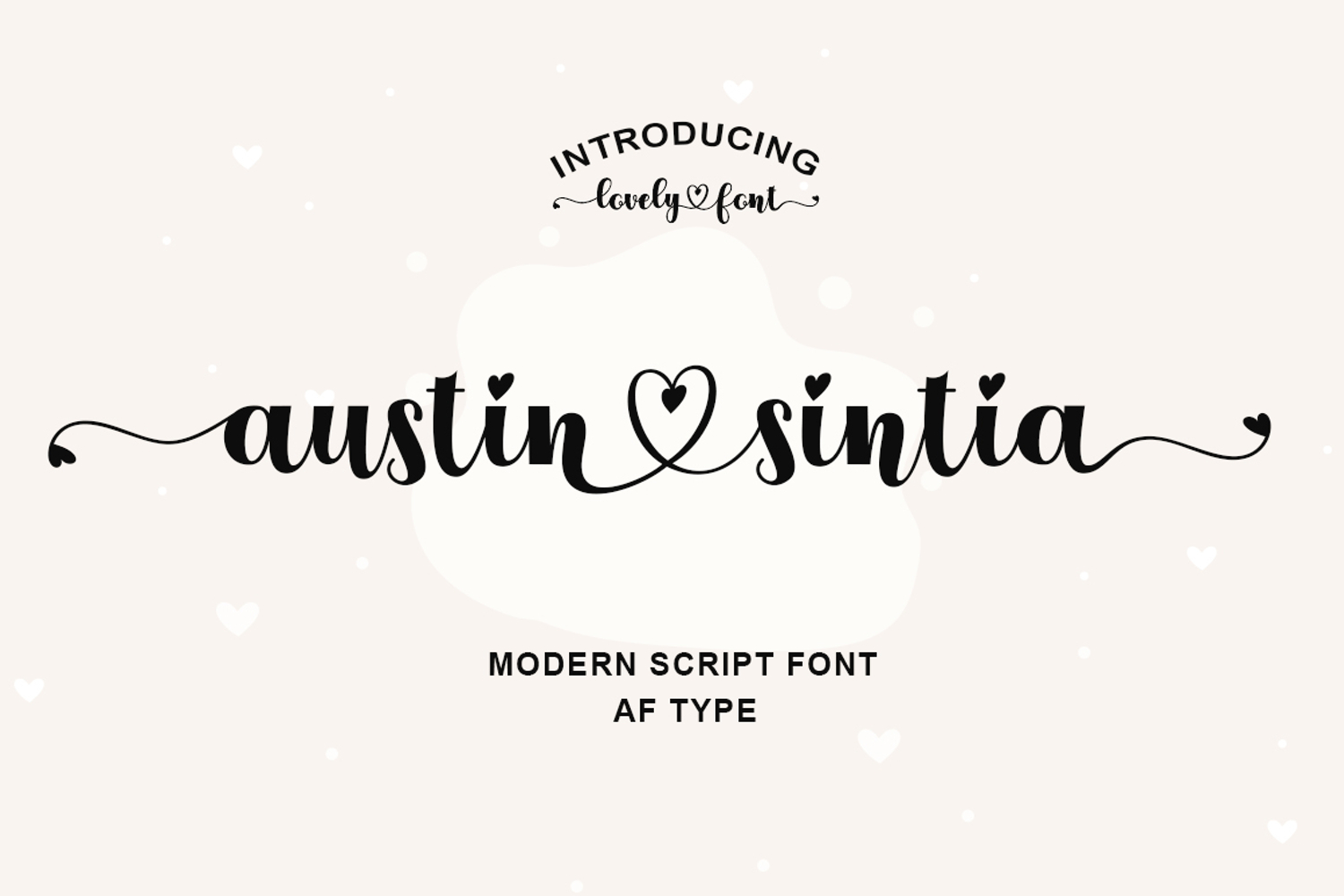
Created By AF Type
Austin Sintia
Introducing the Austin Sintia typeface—part of a versatile family designed with a touch of beauty and elegance.
Austin Sintia stands out for its sleek, clean, feminine, sensual, glamorous, and easy-to-read style, enhanced by graceful letterjoins and smooth curves. Perfect for both modern and classic applications, this typeface is perfect for invitations, logos, labels, restaurant menus, fashion, beauty branding, stationery, novels, magazines, books, greeting/wedding cards, packaging, and all types of advertising projects.